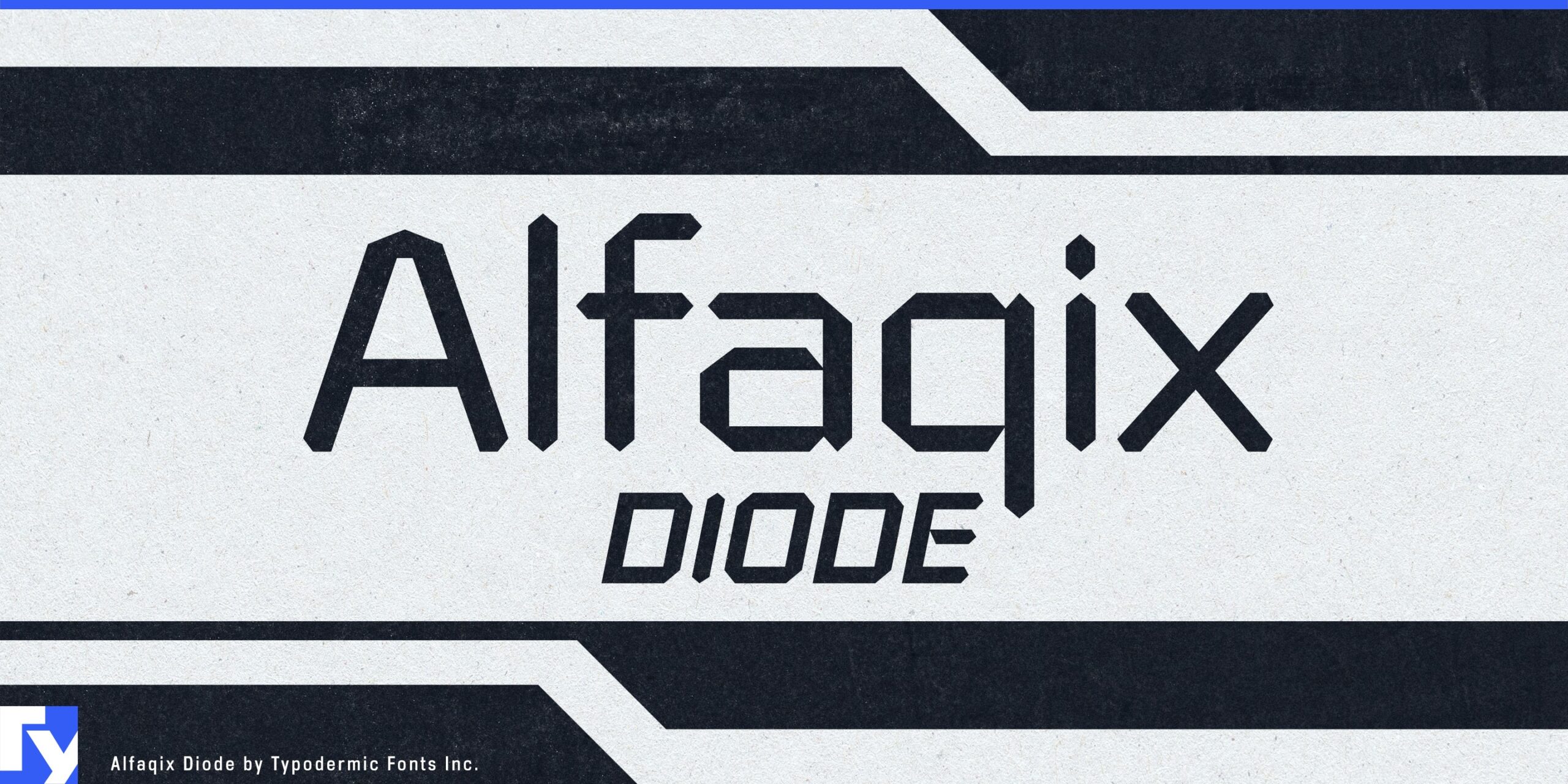
Alfaqix Diode – Techno Diplay Font
Alfaqix Diode – Techno Diplay Font is a versatile font designed to adapt beautifully across different design styles, offering dependable readability and balance. Alfaqix Diode is a modular, LCD-inspired typeface designed to bring clarity and a futuristic edge to digital communication. Its squarish letterforms and sharp, diode-like stroke endings capture the precision of electronic displays while retaining strong readability.
With four weights and matching italics, Alfaqix Diode adapts seamlessly from subtle interface elements to bold headlines. It supports a wide range of Latin-based European languages, making it dependable for global projects.
This is a typeface made for the digital realm—ideal for app interfaces, tech branding, motion graphics, or any design that needs a clean, high-tech character.
Alfaqix Diode delivers typography that feels structured, contemporary, and unmistakably connected to the language of technology. Use it to give your work a crisp, forward-looking voice.
Designer: Ray Larabie